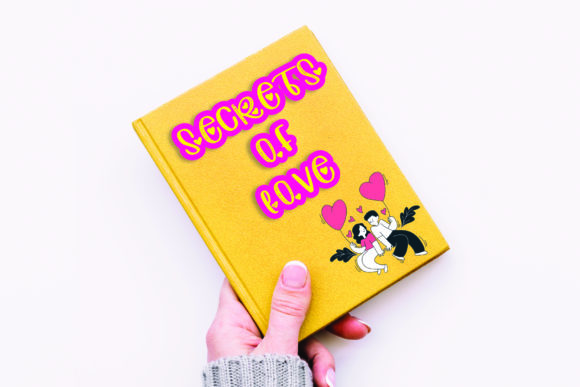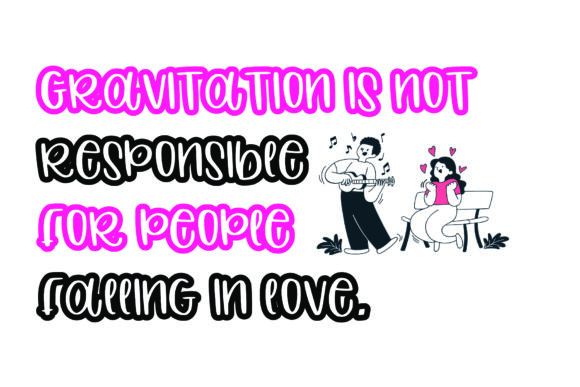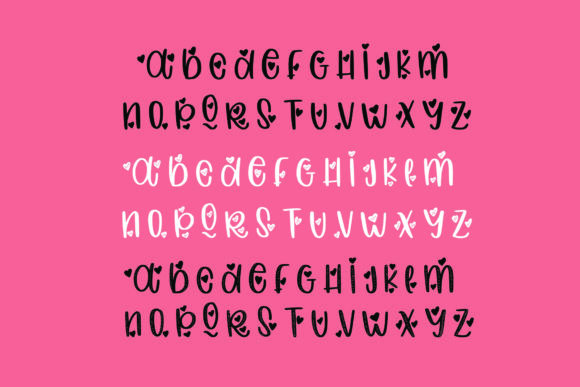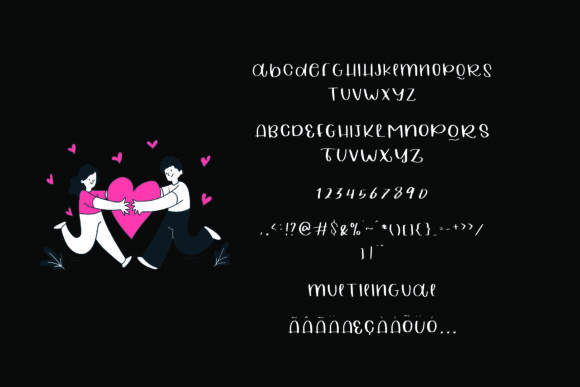
Introduction to Perfect Love Font
Perfect Love is a friendly display font with a romantic theme.
Fall in love with its incredibly versatile style and use it to create spectacular designs This font is PUA encoded which means you can access all of the glyphs and swashes with ease.
Perfect Love Font offers exceptional quality and versatility, making it a valuable addition to your design toolkit. Whether you’re creating for personal projects or commercial use, Perfect Love Font delivers professional results.